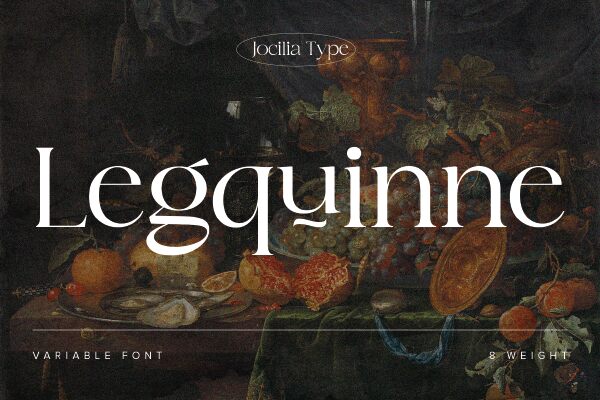
Legquinne font is a modern serif creation by Jolicia Type Foundry, and it can be just perfect for projects where elegance matters. This font has a stunning sophisticated edge to it with a subtle contrast and smooth refined lines. Its curves transform it into an exceptionally beautiful visual tool with the ability to make any reader captivated by the letterforms.
Use Legquinne for designing book covers, magazine covers, fashion brand business cards, stationery designs, promotional flyers, non-fictive photography or architecture books, agency websites, ecommerce stores of all types including for jewelry or furniture businesses. The free artistic serif font can also work in blogs or online magazines’ titles as well as in printed mediums like product packaging.
Legquinne
Jolicia Type Foundry